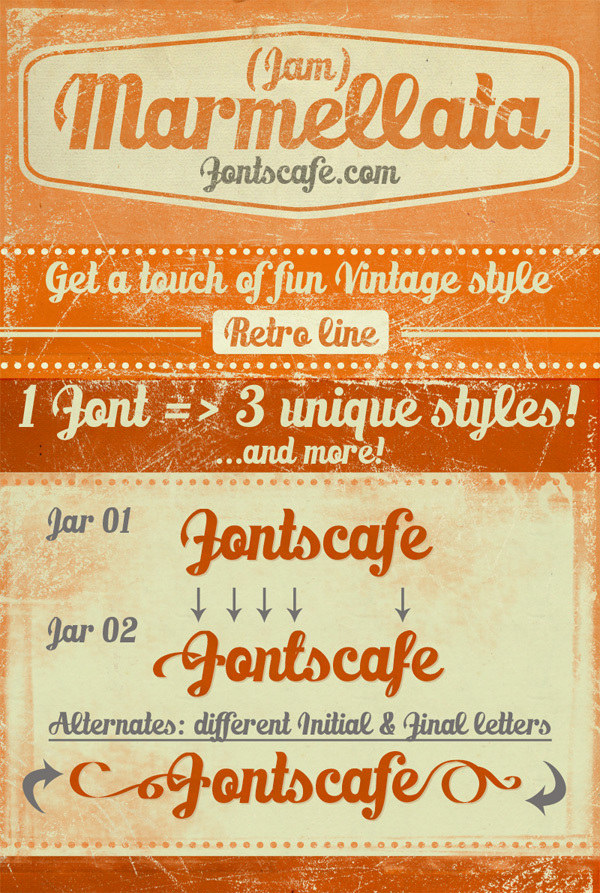
Marmellata (Jam) by FontsCafe is a free calligraphic script with a theatrical, high-contrast sweep. Broad, dark strokes narrow abruptly into hairline joins and pointed inner cuts. Tall looping forms and exaggerated curves give the lettering a lively, slightly eccentric silhouette.
A confectionery package is its most convincing setting, since the rounded flourishes suggest piped icing or handwritten shop signs. It also fits cafe branding, food festival posters, and editorial titles, but packaging makes clearest use of its flourishes.